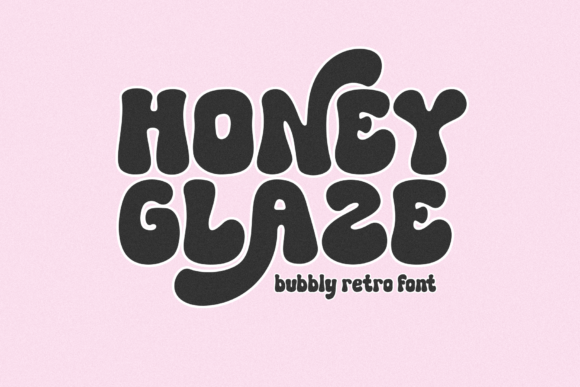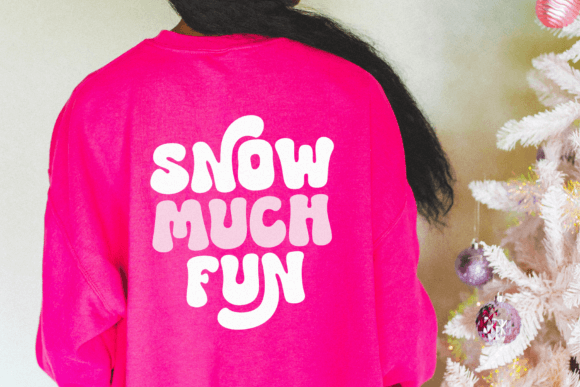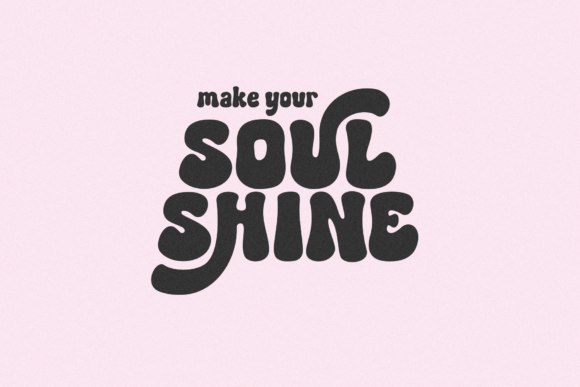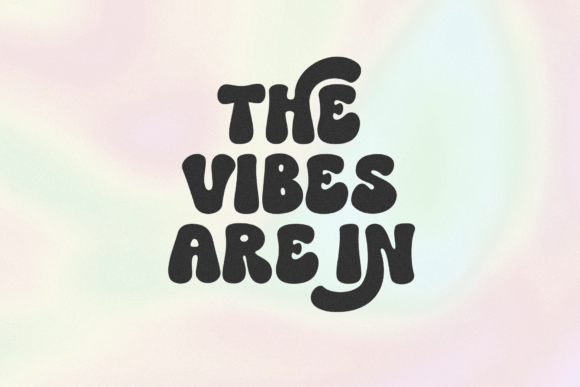
Honey Glaze Font: A Groovy Retro Display Font for Cricut & DIY Projects
About the Honey Glaze Font
Explore the possibilities with Honey Glaze Font, a font that offers both beauty and functionality. Honey Glaze is a bubbly fun retro font. This font is perfect for all of your retro logos, shirts, quotes, personalized names, ornaments, stickers and more! This font includes super cool swashes that is sure to make all of your design projects stand out!
Honey Glaze’s playful, retro style is ideal for headlines, short text blocks on posters, branding for vintage-inspired products, and packaging designs that evoke a sense of fun and nostalgia. It also works well for short social media posts or celebratory designs. However, its bubbly forms and swashes are less suitable for body copy or UI elements where high readability is paramount. Extended use would likely strain legibility.
The font’s inherent energy pairs well with clean, geometric sans-serifs like Futura or Montserrat for a balanced contrast, or with a classic serif like Garamond for a sophisticated retro feel. A playful script font could also add another layer of vintage charm, but should be used sparingly to avoid overwhelming the design.
Honey Glaze projects a friendly, nostalgic, and slightly whimsical personality, making it perfect for brands aiming for a retro-inspired aesthetic with a touch of modern playfulness.
Honey Glaze Font Usage Examples
Honey Glaze Font Example